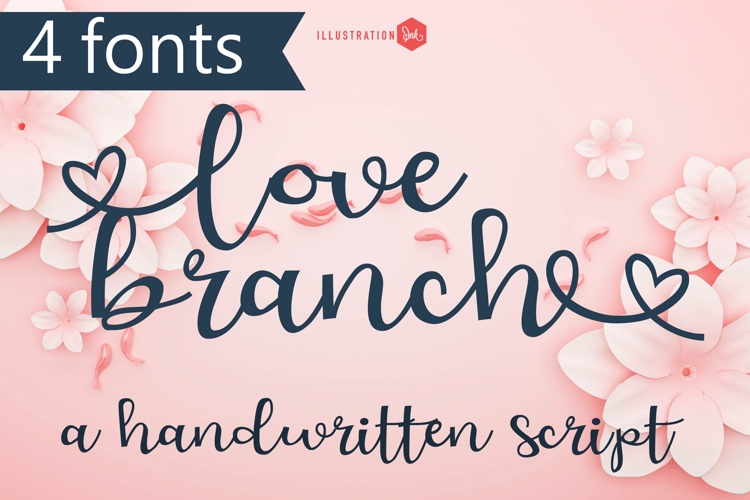
ZP Love Branch Font Family
This hand-crafted font is a beautiful hand-written script with an alt case of 52 characters with swoopy, flourished hearts. 4 versions included.